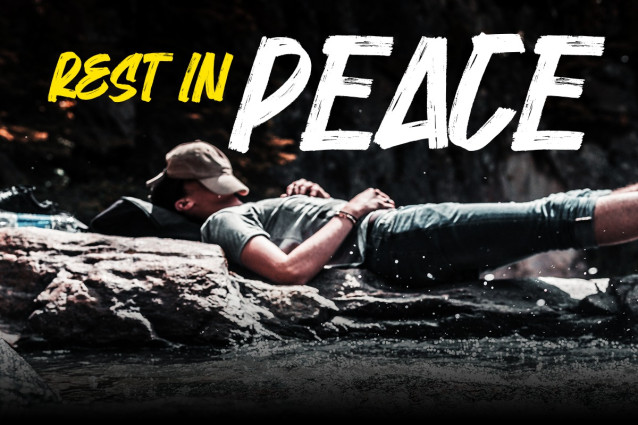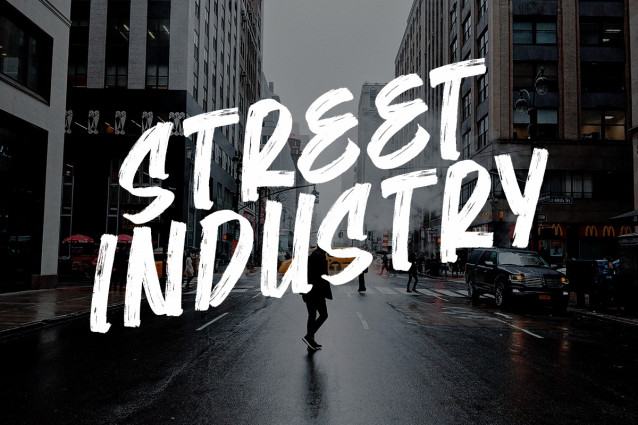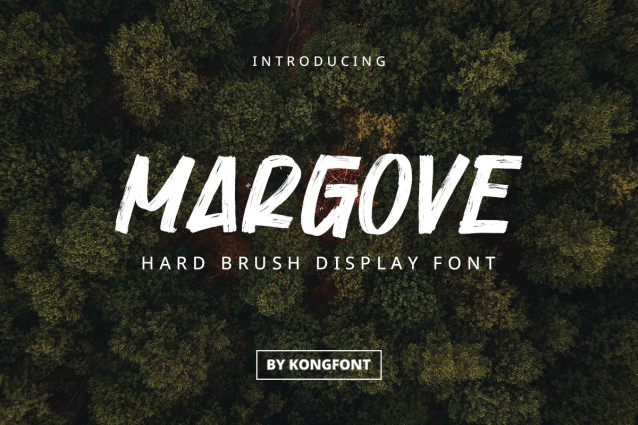
Margove Brush Font
Margove Brush Font is a brush font typeface. This font is like a replica of an inscription written using a brush with a medium size and quite thick. There is more to a fully filled side than a shaded side. Margove font has a bold, upright, and blunt end font. These are the things that cause this type of letter to have its charm. Margove font is a brush-type font that is visible when printed in large font sizes and viewed from a distance. Each letter in this font can be distinguished effortlessly so that everyone doesn’t have to try hard to understand the writing that uses this letter. From this explanation, Margove font is legible font. Margove font can be used as a digital font or print font. This font is the best for wall art, movie or music titles, and ad promotions. Besides that, this font is also suitable when combined for an event, such as on banners and posters. Margove font has aesthetic value and adds a firm impression to the objects it completes. This impression of Margove font will be even stronger if it is completed with a theme and color that seems dark. Our font brush set is compatible to use as Figma fonts, Canva fonts, Freepik Fonts, and Adobe Fonts. They also work as Windows Fonts, and Apple Fonts. For your social media needs, you can use and install fonts in our brush typography collection to use as Instagram Fonts, Facebook Fonts, and Twitter Fonts.